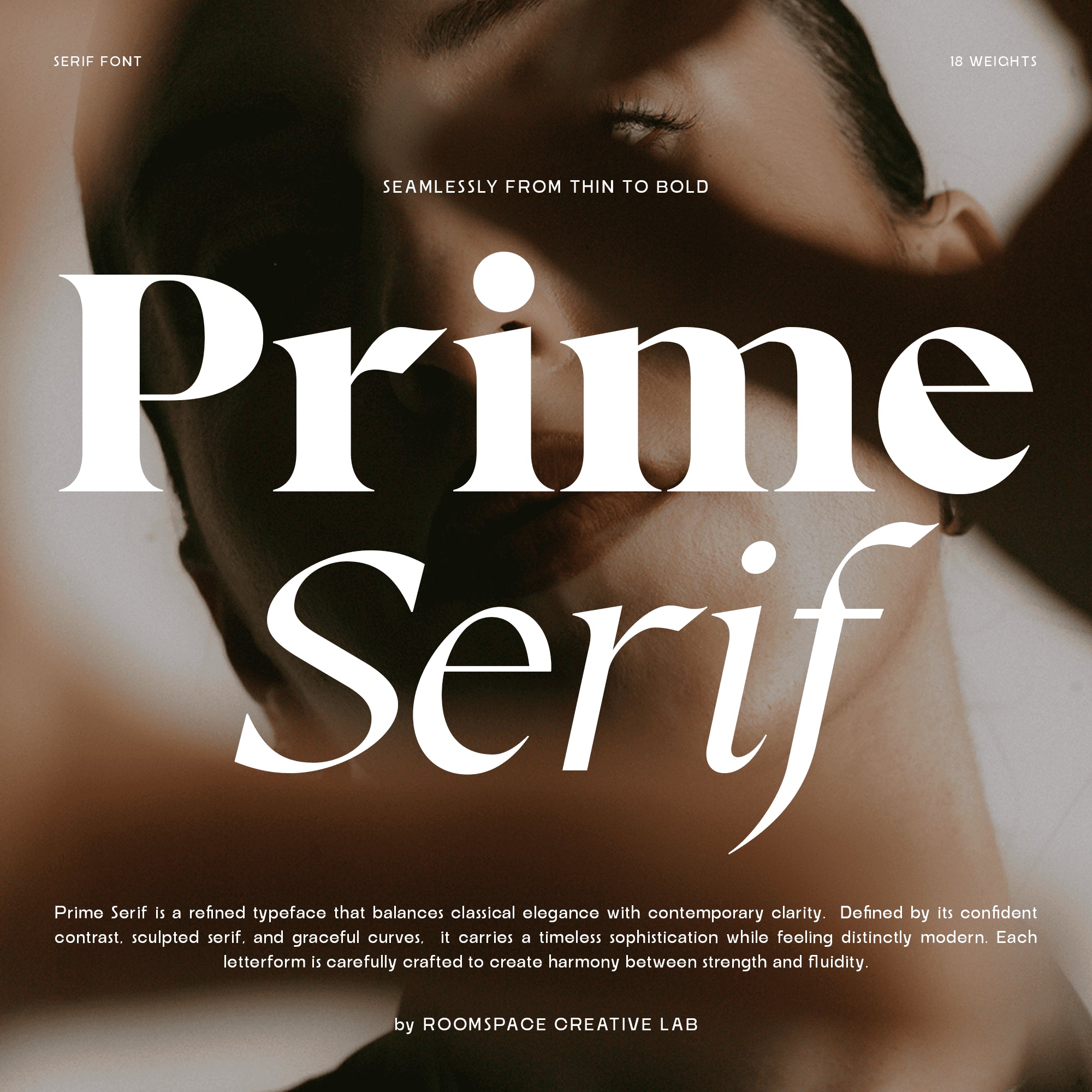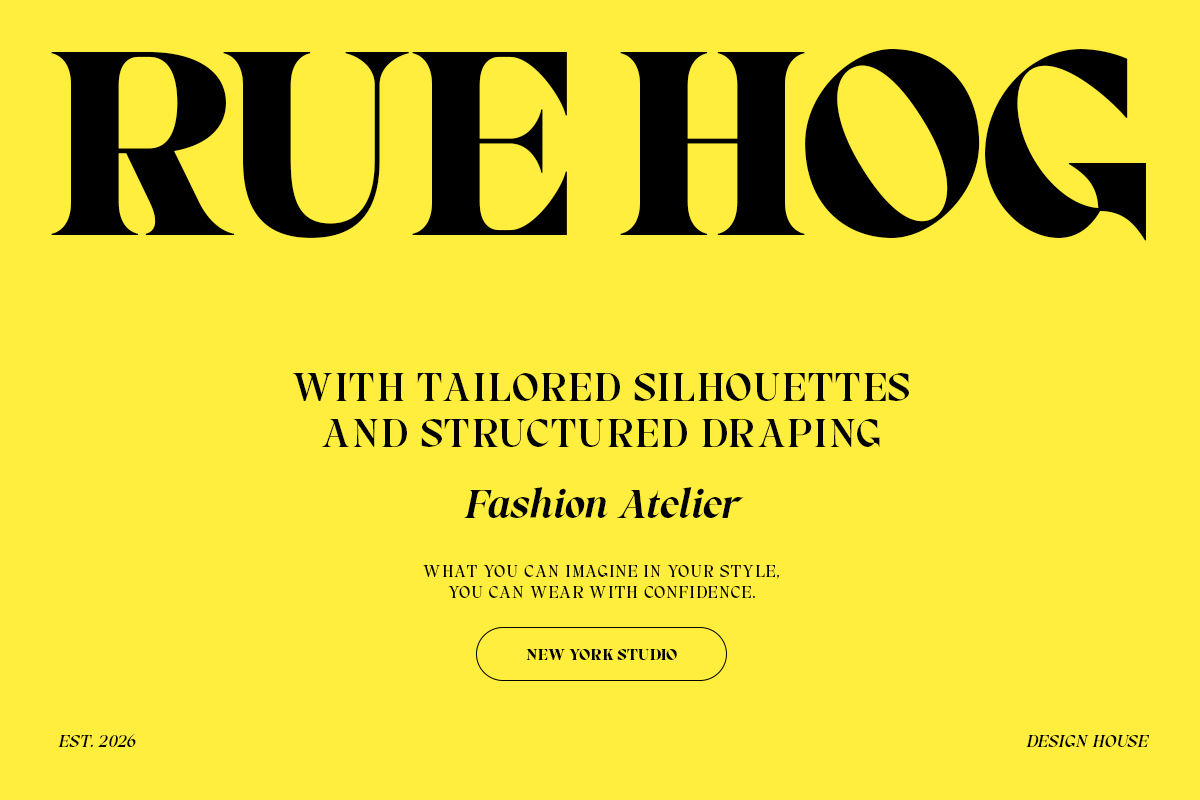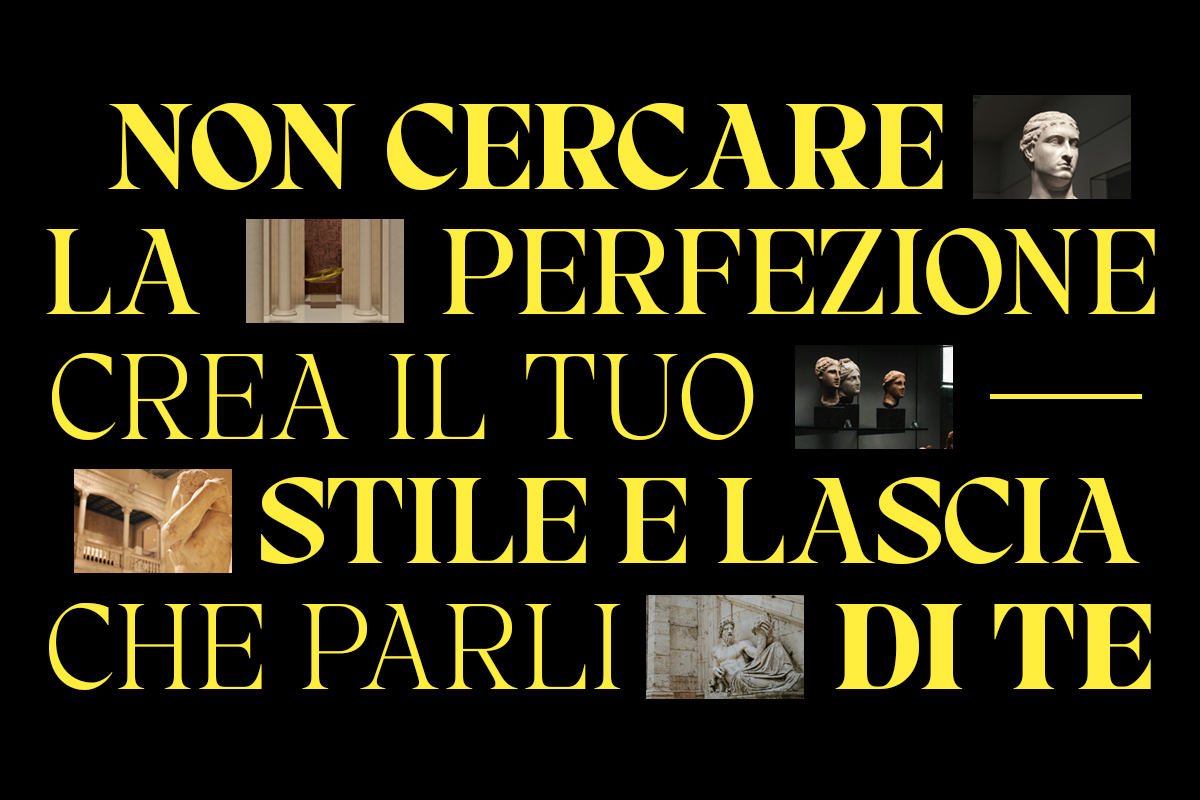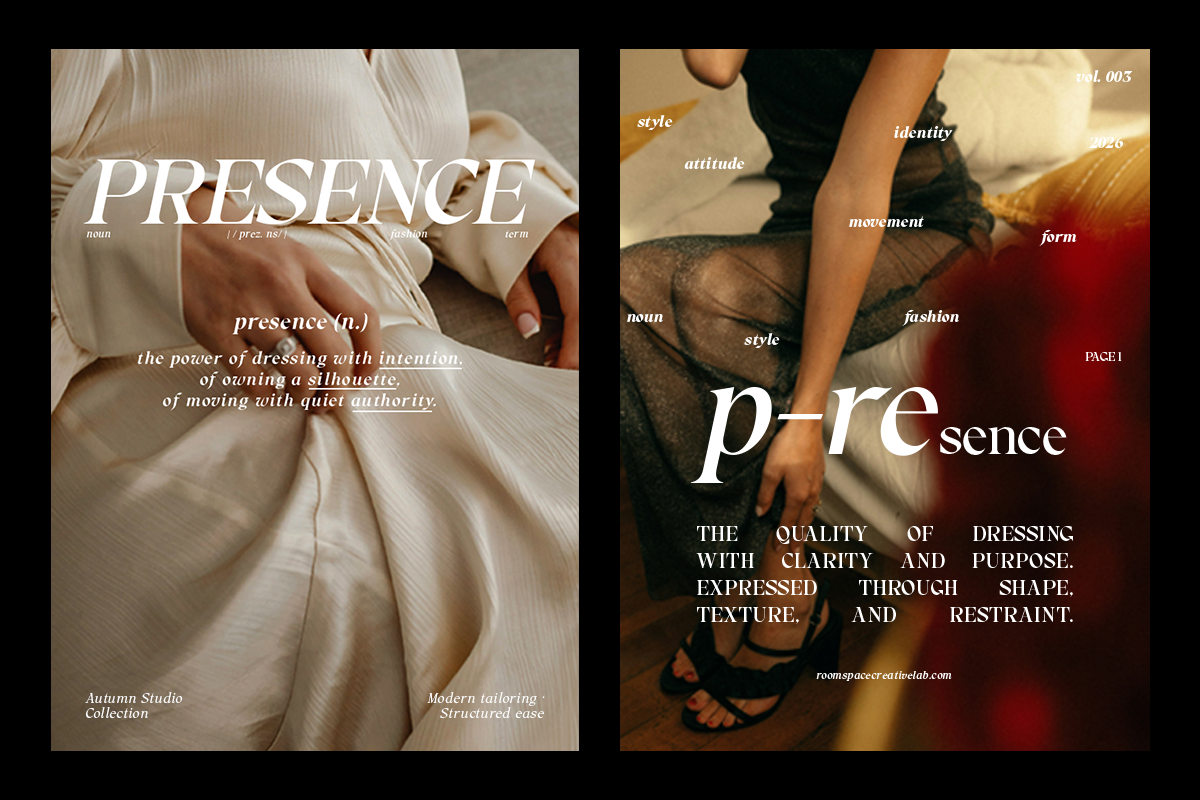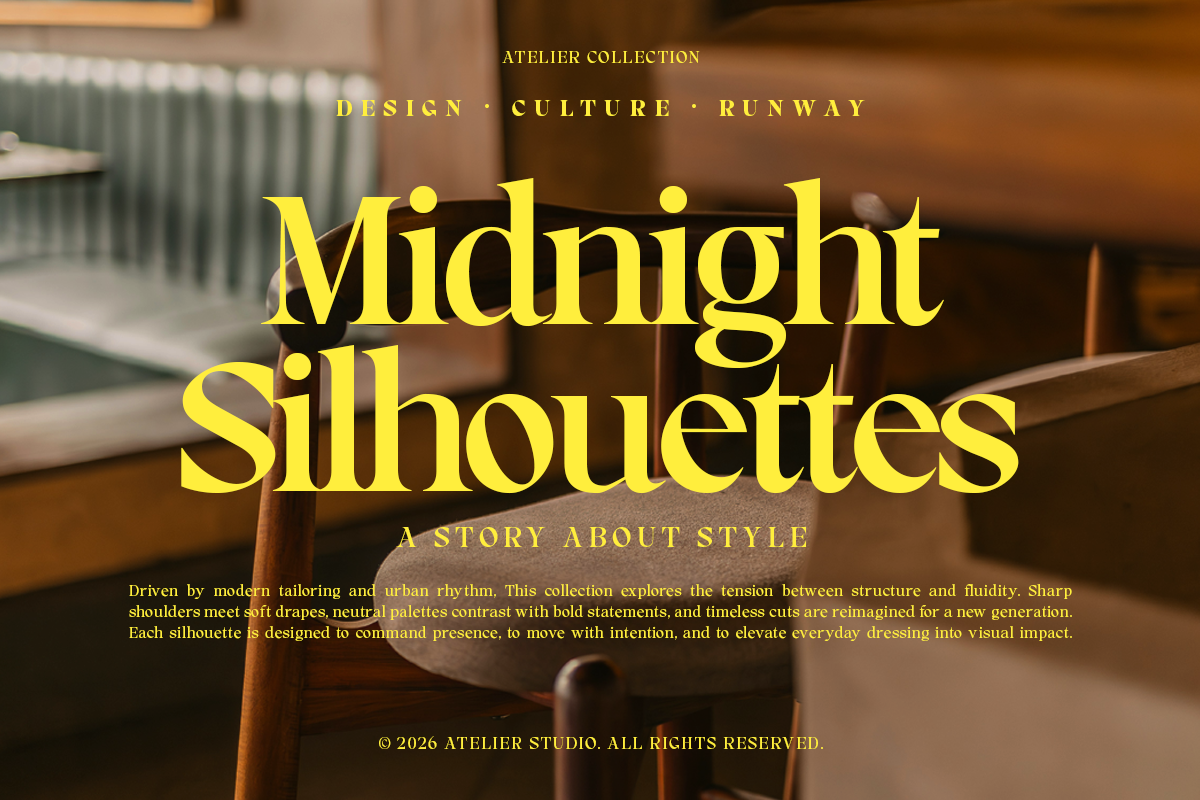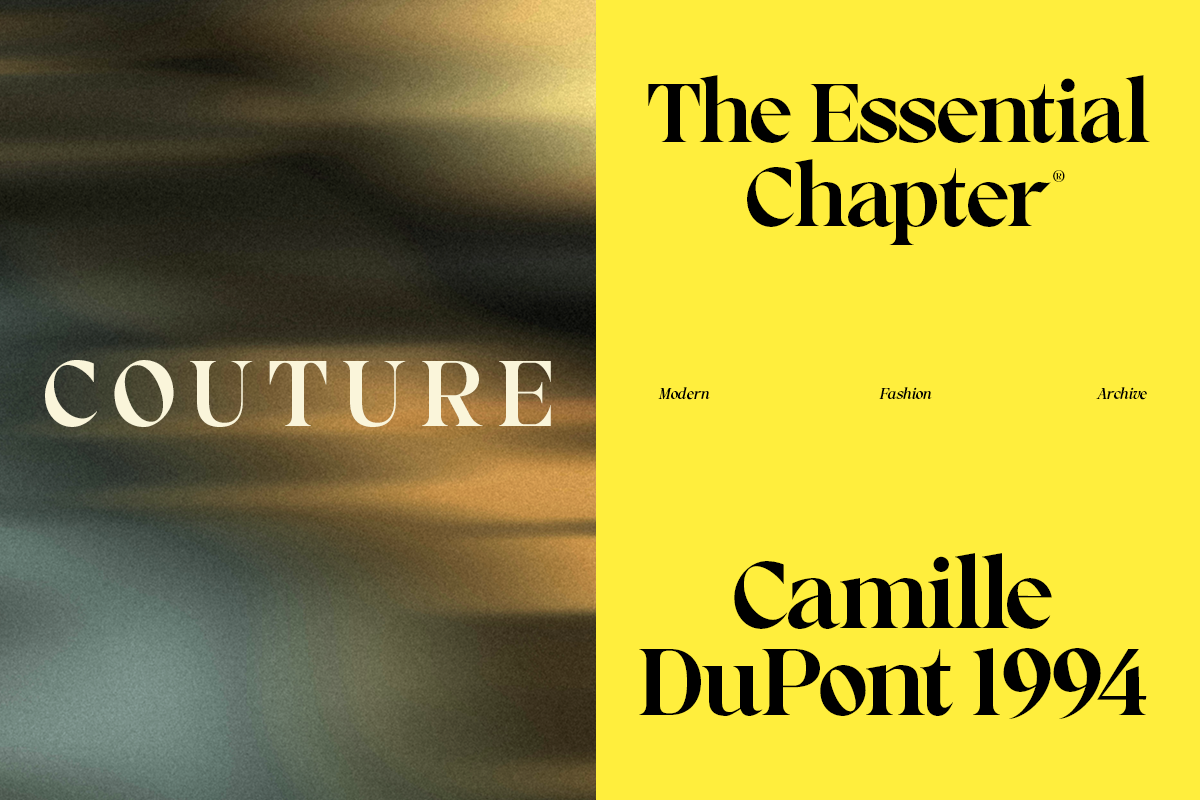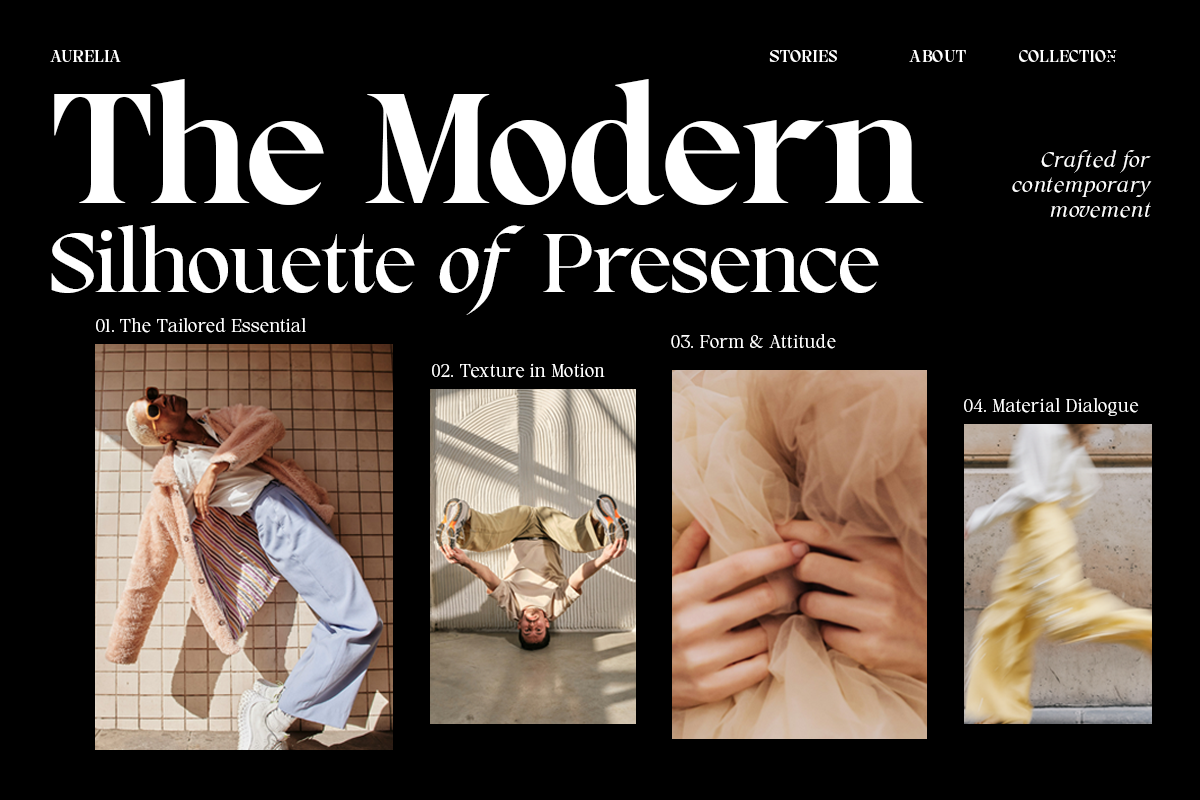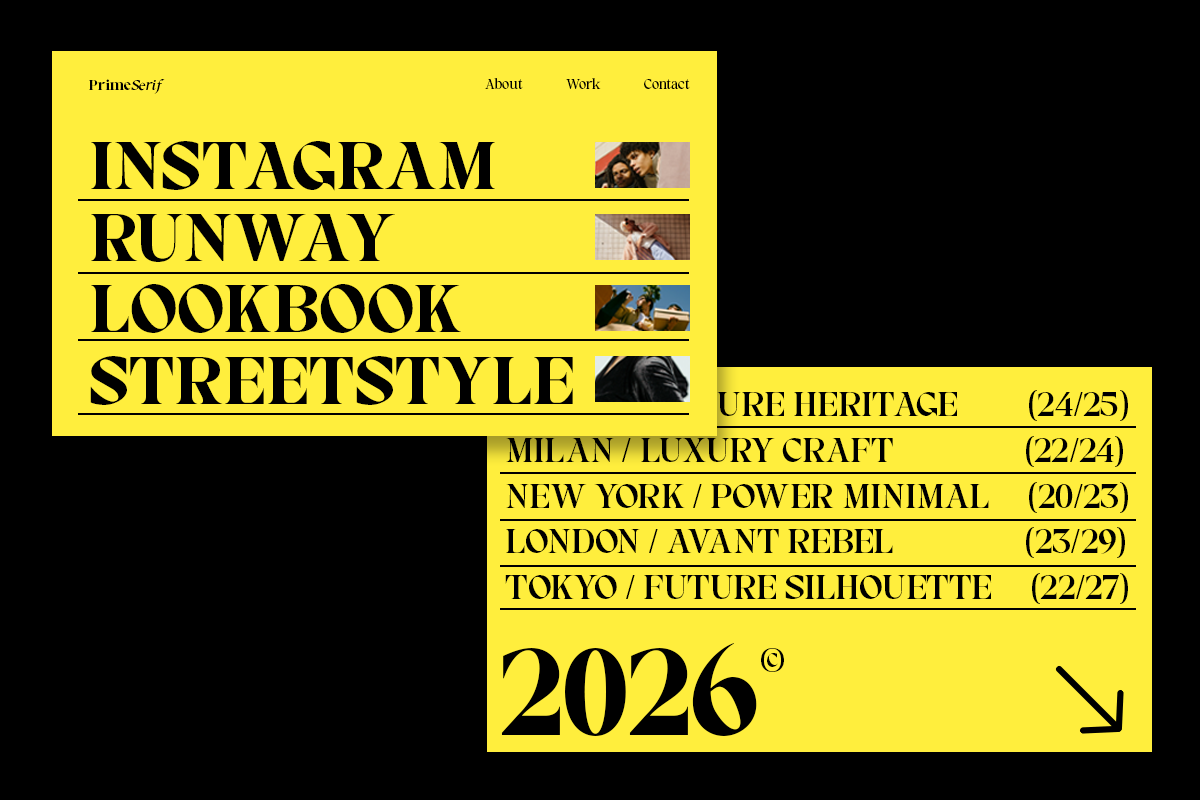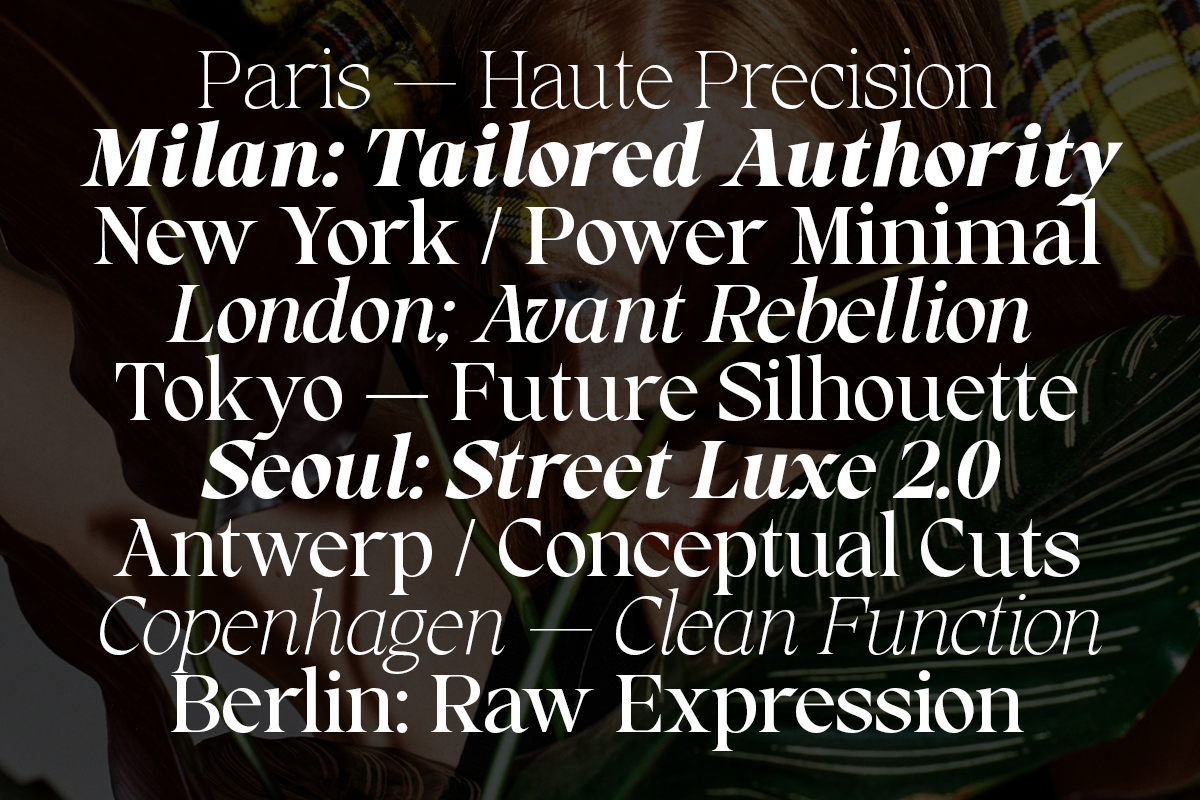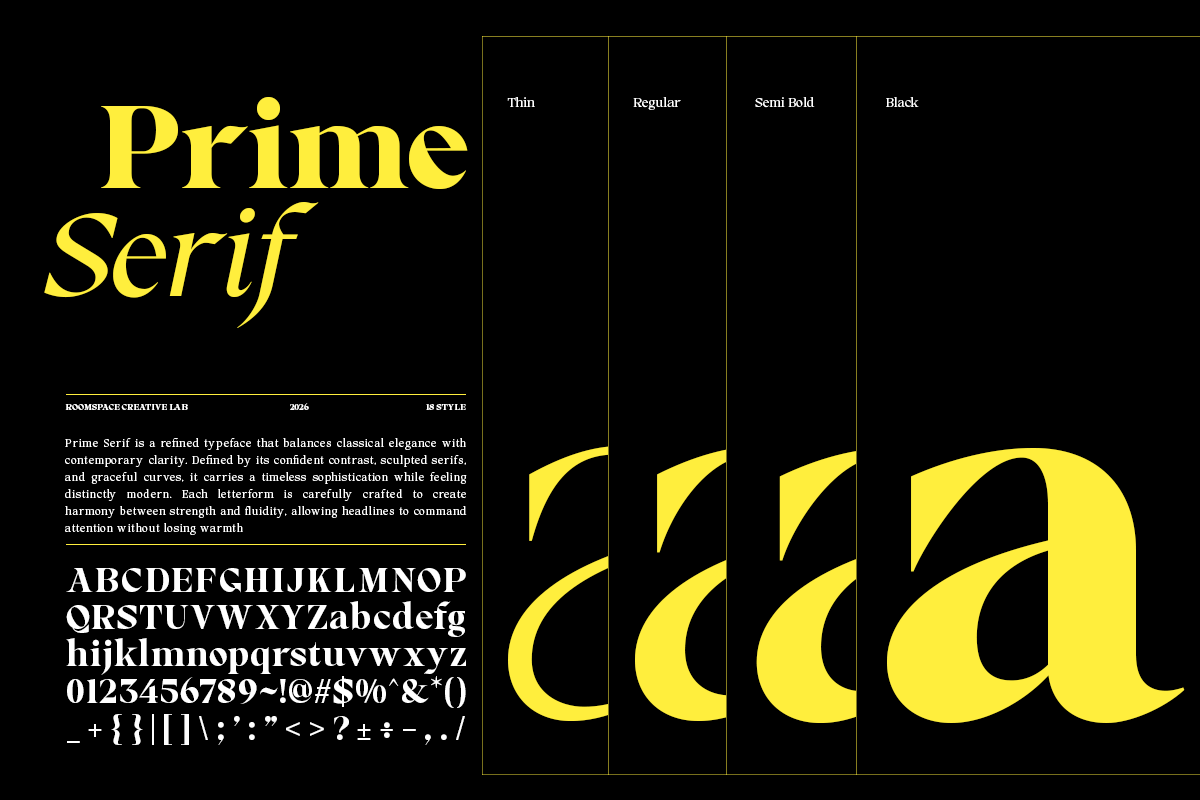
Prime Serif – Elegant Modern Serif Font Family
PrimeSerif is a modern serif typeface designed to balance classical elegance with contemporary clarity. Featuring sculpted serifs, graceful curves, and confident contrast, this typeface creates a refined typographic presence ideal for luxury branding, magazine headlines, and premium visual identities. With 18 weights ranging from Thin to Bold, Prime Serif offers exceptional flexibility for both display and editorial typography while maintaining harmonious readability. Perfect for designers seeking a sophisticated serif that feels both timeless and modern.
• 18 font weights (Thin to Bold)
• Elegant modern serif design
• Uppercase & lowercase characters
• Multilingual support
• Professional kerning and spacing
Prime Serif is a modern serif font family that features 18 weights from Thin to Bold, designed for clarity and elegance. It includes uppercase and lowercase characters, multilingual support, professional kerning and spacing, and is available in OTF, TTF, and WOFF formats.